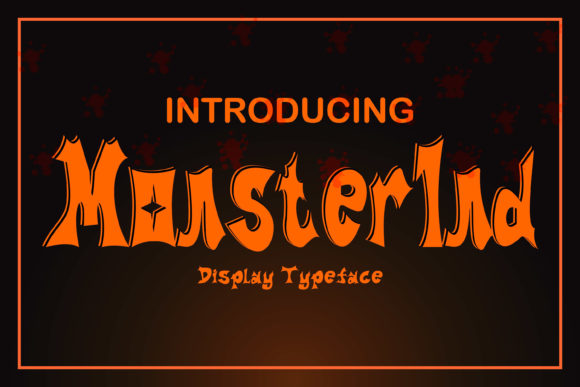
Monsterind Font: A Spooky Display Typeface for Creative Branding
I was recently working with a small business owner who runs a boutique that specializes in handmade Halloween-themed décor. Every October, they bring out new product lines and promotional materials to match the spooky season’s vibe. This year, they wanted to elevate their branding without overhauling everything from scratch. That’s when I discovered Monsterind, a unique display font that perfectly fits the bill for adding a dramatic, mysterious, and polished look to seasonal marketing and product design.
Monsterind for Seasonal Product Labels and Packaging
Monsterind is a display font — one of those bold, eye-catching typefaces that don’t work well in long blocks of text but shine when used sparingly for impactful statements. It has a slightly jagged edge and an eerie elegance that screams “spooky,” making it ideal for seasonal items like candle jars, potion bottles, or even Halloween candy boxes.
When we tested Monsterind on some sample labels for their new line of haunted house candles, the difference was immediate. The previous version used a generic script font that felt too soft and lacked character. With Monsterind, the label had more presence, drawing the eye and creating a sense of intrigue. It helped the products stand out at local markets and online listings, especially when paired with dark backgrounds and muted accents.
Monsterind in Logo Design and Brand Identity
We also tried using Monsterind as part of the brand’s logo for the limited-edition collection. While it wasn’t suitable for the main name (which needed something legible), it worked beautifully for the tagline: “Unleash the Magic.” This subtle use added personality without sacrificing clarity. It showed how a creative font can enhance brand identity by reinforcing a specific mood — in this case, the enchanting yet spooky atmosphere of the Halloween season.
For businesses in niche markets like seasonal décor, craft shops, or themed cafés, having a consistent visual identity across all touchpoints is key. Monsterind helped them align their packaging, social media graphics, and website banners under a unified theme, which made the brand feel more intentional and professional.
Monsterind for Social Media Templates and Digital Ads
Another area where Monsterind really impressed us was in digital content creation. Their Instagram promotions often feature short phrases like “Get Spooked” or “Welcome to the Witching Hour.” Using Monsterind for these headlines gave their posts a stronger voice and made the call-to-action more compelling.
On mobile screens, the font maintained its charm while still being readable enough for quick engagement. We were careful not to overuse it, though — sticking it to key headers and decorative accents. That way, it didn’t clash with the cleaner body text and kept the overall layout balanced and easy to digest.
For anyone running seasonal campaigns or selling Halloween-related fonts, Monsterind could be a game-changer. Its distinct style works well in thumbnails, carousel ads, and even YouTube titles if you’re into vlogging about your creative process. Just remember that display fonts are best for short bursts of text where you want to make an impression, not for long paragraphs or menus.
Font Pairing Tips with Monsterind
Monsterind doesn’t need to be the only font in your toolkit. In fact, pairing it with a clean sans serif font helps balance its dramatic flair. For example, we matched Monsterind with Montserrat for a flyer promoting a Halloween party. The contrast between the two fonts created a strong visual hierarchy and guided the reader naturally from the headline to the details below.
Here are a few simple font pairing ideas to consider when using Monsterind:
- Clean Sans Serif — Great for readability and modern aesthetics (e.g., Roboto, Open Sans).
- Elegant Serif — Adds sophistication to spooky themes (e.g., Playfair Display, Merriweather).
- Script or Handwritten Fonts — Can complement Monsterind in tags or subheadings for a personalized feel.
The trick is to keep Monsterind as the star of the show. Use it for headlines, logos, or short impactful messages, and let supporting fonts handle the rest. This approach keeps your designs cohesive and avoids overwhelming your audience visually.
Monsterind for Business Cards and Thank-You Tags
One thing I always stress to my clients is the importance of first impressions. Whether it's a business card handed out at a pop-up shop or a thank-you tag included in a package, typography plays a big role in how people perceive your brand. Monsterind, with its bold and slightly sinister character, adds a memorable touch to these small but powerful details.
We used Monsterind on a thank-you tag for a customer appreciation box they send out each fall. The phrase “Thank You for Embracing the Darkness” in Monsterind stood out against a black background and metallic foil finish. It wasn’t just a thank-you note; it became a branded experience that customers remembered.
So, if you're preparing for the next wave of seasonal sales or simply wanting to refresh your branding with something a bit edgier and more creative, give Monsterind a try. You might just find that the right font is the missing piece that ties your entire brand together — especially when it comes to standing out in the world of display fonts.